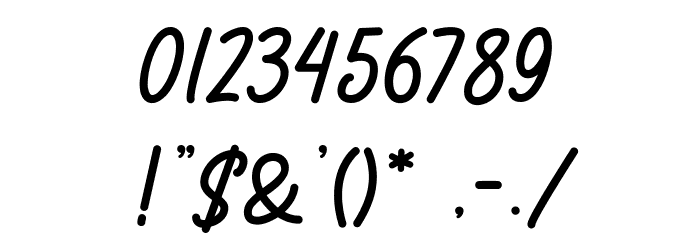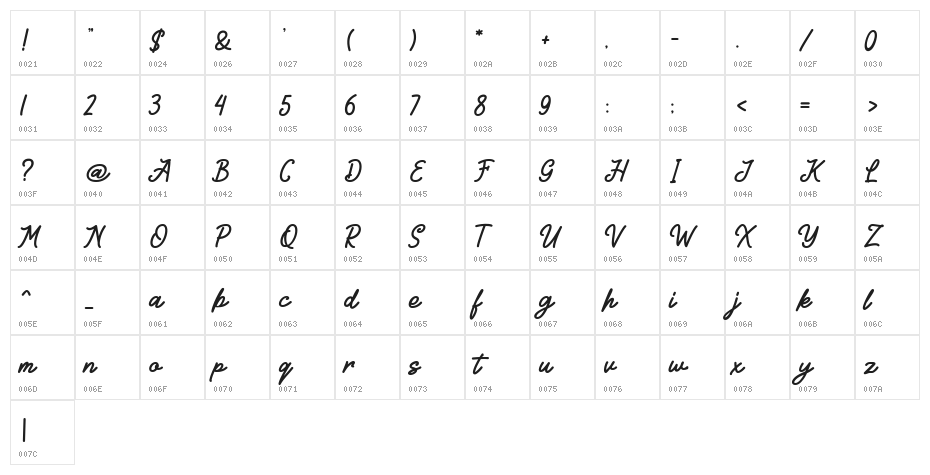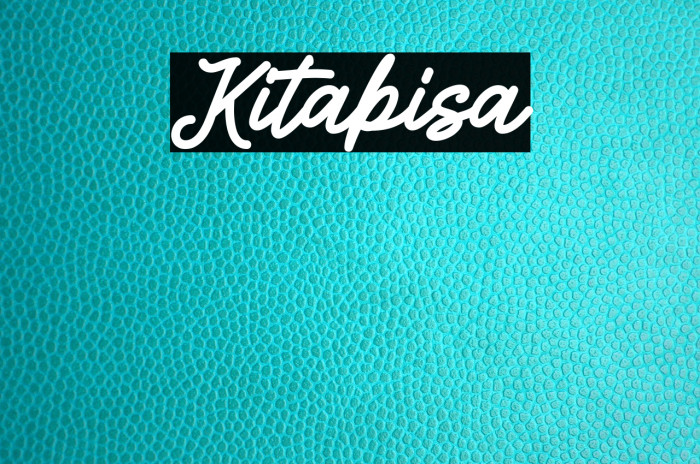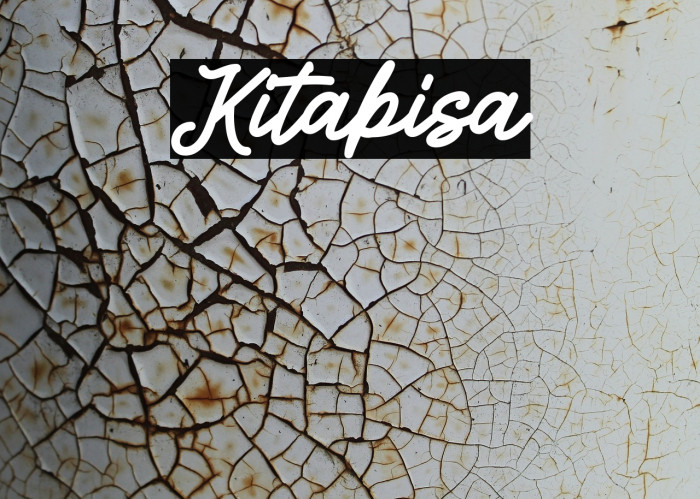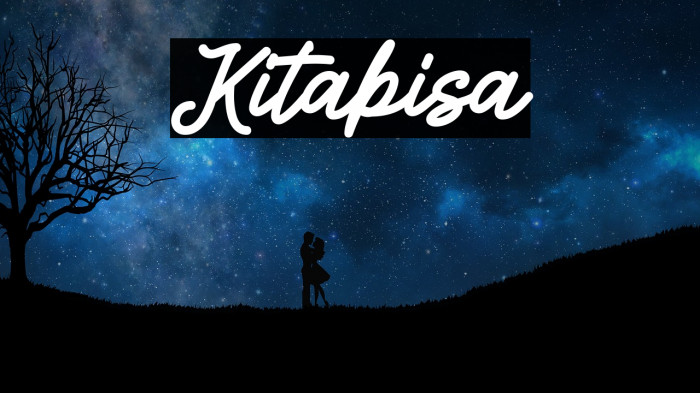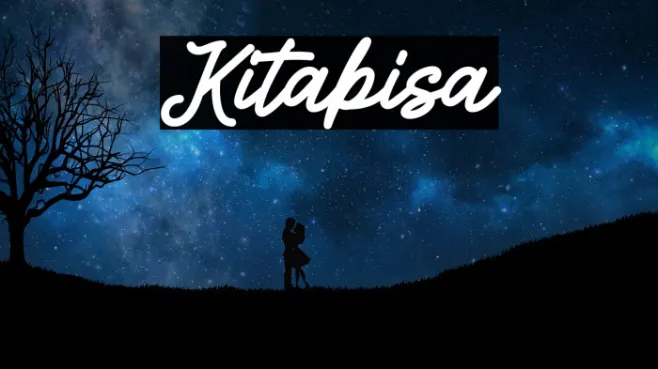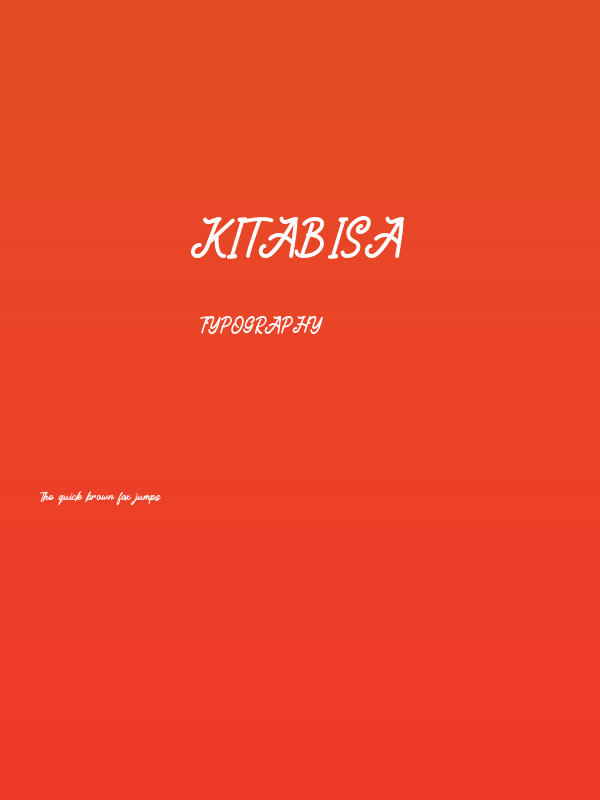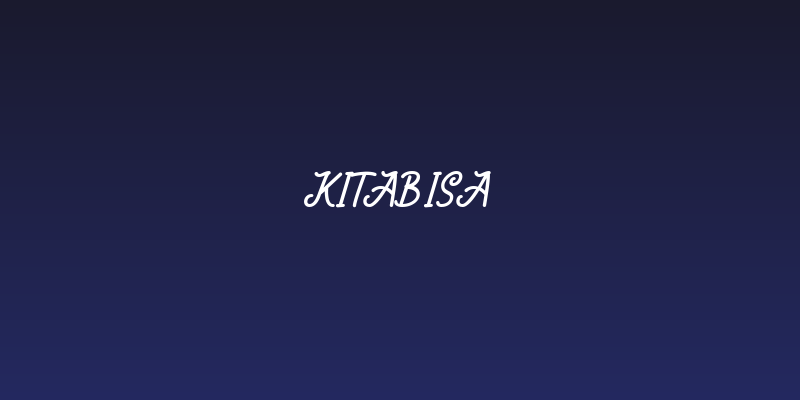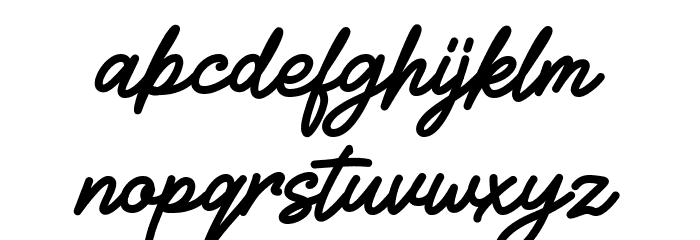
Kitabisa Font
Kitabisa Description
This font exhibits a flowing, cursive style that combines elegance with readability. The uppercase letters are slightly more formal, with a consistent slant and smooth curves that suggest a handwritten quality. The lowercase letters maintain this fluidity, with a slightly more casual appearance, making it versatile for both formal and informal contexts. The numerals are clear and distinct, adhering to the same cursive style, which ensures consistency across all characters. Special characters are well-integrated, maintaining the overall aesthetic of the font. The strokes are moderately thick, providing a balanced contrast that enhances legibility without sacrificing style.
| Use Case | Headlines, Invitations, Personal Branding |
| Proposed Projects | Ideal for wedding invitations, greeting cards, personal branding, and elegant packaging designs. |